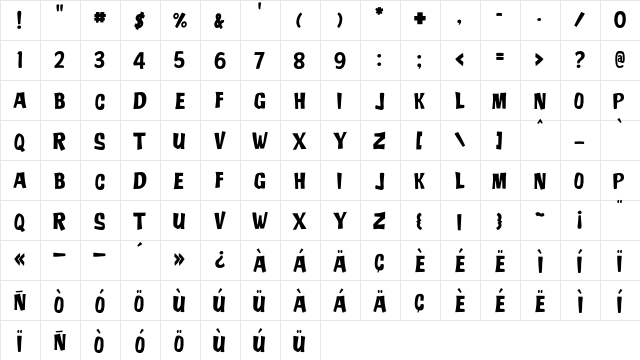
JMH ADO Regular Font Preview
JMH ADO Regular
JMH ADO Regular Font Details
Design Context for JMH ADO Typeface
JMH ADO is a composed and adaptable typeface that performs quietly and consistently across a wide range of design contexts.
Pro Tip: Pair JMH ADO with a font of contrasting weight or personality to build a more expressive typographic hierarchy.